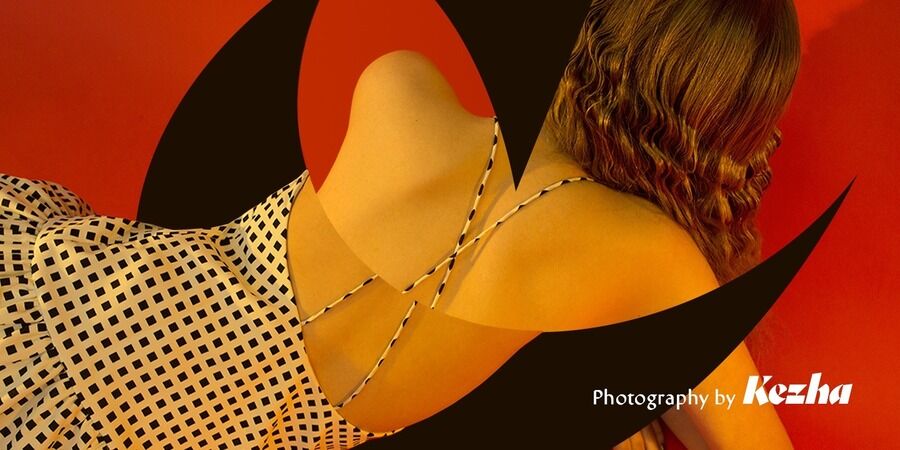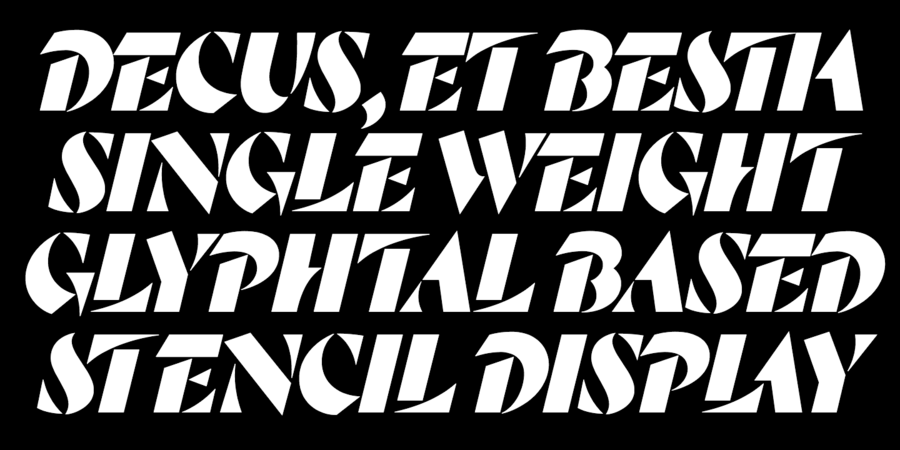
About RozzaRozza is a single weight stencil cursive fat typeface for extremal display use. Looking at this font the story of beauty and the beast comes to mind. That is how I would describe it. On the one hand prickly and dangerous, and on the other — pulsating beauty and passion. Try to combine Rozza together with Displace — great pair! The typeface was designed by Denis Serebryakov in 2017.
heavy, daring, distinctive, original, notable, strange, loud, sharp, monumental, dynamic, artistic, expressive, splashy, eccentric, bizarre, cutting, crisp, night, cold, architectural, solid, black, alive, rhythmic, playful, fast, impetuous, strong, wild, active, bright, expressing, refined, rich, salon art, solemn, voiced, noble, accurate, masterful, beautiful, brilliant, luxurious, expensive, elite, high-quality, famous, spectacular, fashionable, convincing, ambitious, glossy, flat, proud, theatrical, dramatic, passionate, sexy, Glamorous, cultural, select, modern, urban, self-assured, festive, pretentious, romantic, attractive, extravagant, freewheeling, free, thorny, esthetic, nonconformist, experimental
cinema, animation, theater, architecture, sculpture, puzzle, night club, cosmetics, fashion, opera, music, luxury, wine, restaurant, Premium, decoration, barbershop, design, cards, drama, chocolate, cafe, footwear, coffee, paint, alcohol, candies, entertainment, bar, perfumery, perfume, interior, beauty, clothes, boutique, jeweler, model, salon, shoes, heel, romance, love, dress, reward, trophy, graphics, illustration, evening Typeface associated with age: